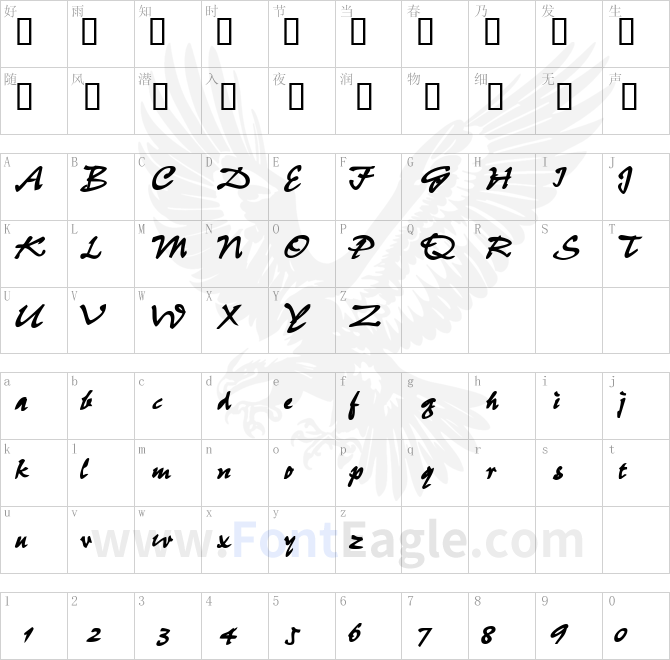
- Font name:CaimanScriptSSK
- Font Subfamily ID:Macromedia Fontographer 4.1 CaimanScriptSSK Bold
- Font Full Name:CaimanScriptSSK Bold
- Font Version:Macromedia Fontographer 4.1 8/11/95
- Postscript:CaimanScriptSSKBold